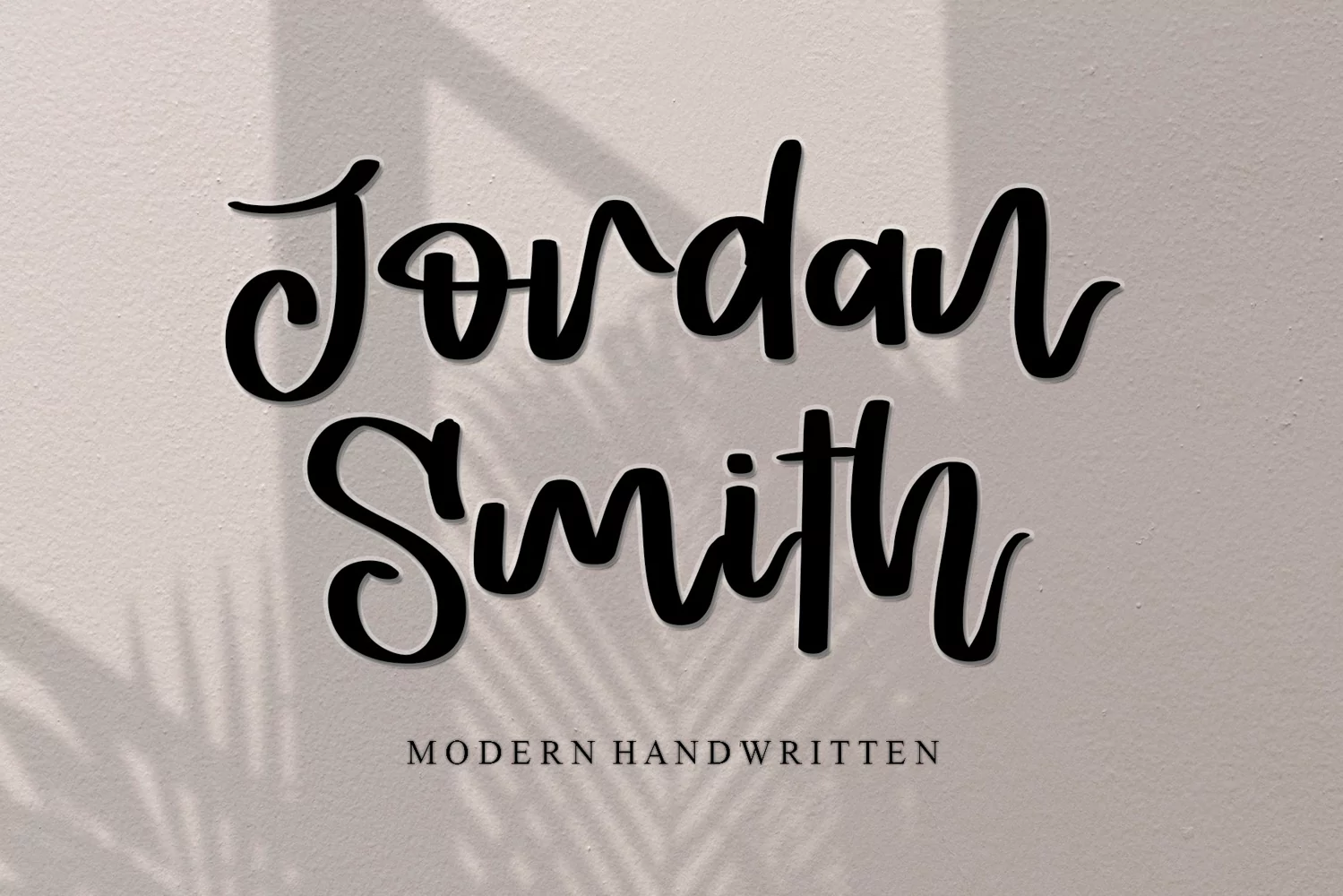
Beautiful Handwritten
Jordan Smith is a simple and quirky handwritten font. It has a classy, elegant, and modern look that you can use for logos, branding, invitations, stationery, wedding designs, social media posts, and much more!